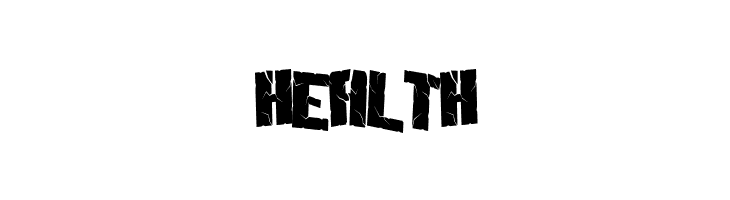
A bold, distressed font with a digital glitch effect, perfect for edgy designs.
A bold, textured font with a stippled effect, perfect for impactful designs.
A bold, decorative font with intricate floral patterns in each character.
A bold, distressed font with a gritty, urban style.
A playful, wavy font with bold uppercase letters and a whimsical style.
A playful font with meditating characters accompanying each letter.
A bold, modern font with arrow-like points extending from each character.
A bold, striped font with a modern and dynamic appearance.
A playful font with cartoon characters accompanying each letter.
A whimsical font with owl-decorated uppercase letters and clean lowercase outlines.
A playful, decorative font featuring angelic frogs alongside bold characters.
A bold, decorative font with Egyptian-themed illustrations accompanying each letter.
A decorative font with princess illustrations for each uppercase letter.
A bold, playful font with elephant illustrations accompanying each letter.
A playful font with cheerleader graphics and bold, uppercase letters.
A playful, heart-themed decorative font with bold, handwritten characters.
A bold, hand-drawn font with dotted accents, perfect for playful and lively designs.
A decorative font with characters inside heart-shaped floral designs.
A modern, glitch-style font with a dynamic, distressed appearance.
A bold, decorative font with a unique checkered pattern.
A festive font with Christmas tree-shaped letters and holiday-themed decorations.
A playful, decorative font with characters enclosed in basket designs.
A futuristic, pixelated font with a digital, geometric style.
A bold, inline font with a geometric and decorative style.
A modern, geometric outline font with uniform line thickness and a minimalist design.
A bold, shattered glass effect font with a dynamic and decorative style.
A playful icon set featuring food, beverages, and decorative symbols with a cartoonish style.
A playful and cohesive set of food and drink icons with a modern, cartoon-like style.
A playful icon set featuring food, drinks, and directional elements with bold outlines.
A decorative script font with intricate floral embellishments.
A bold, splattered font with a grunge-like, artistic style.
A bold, decorative font with a three-dimensional outline effect.